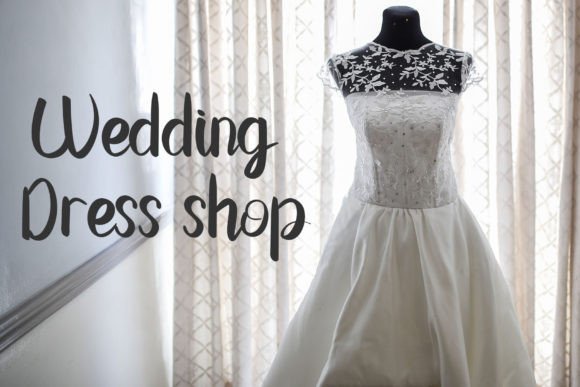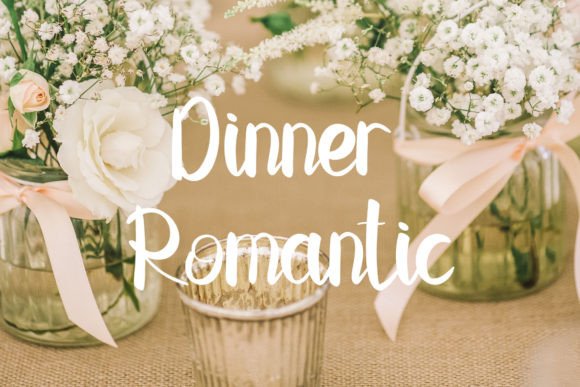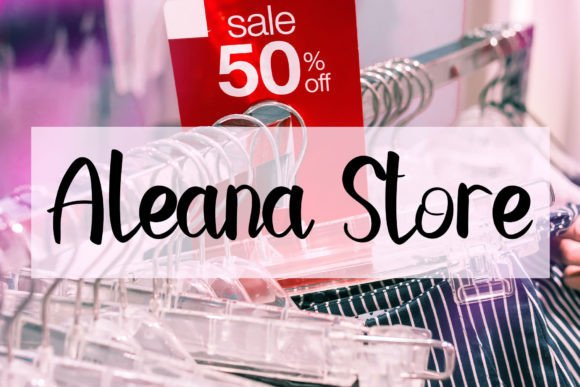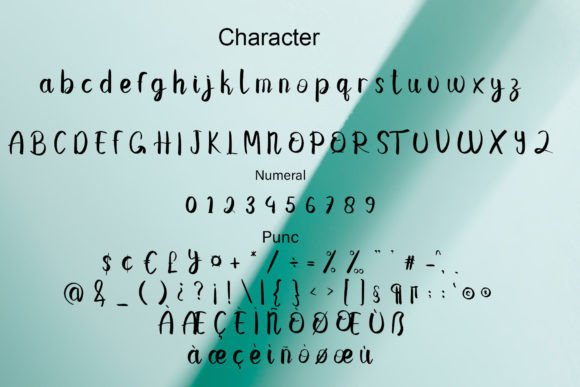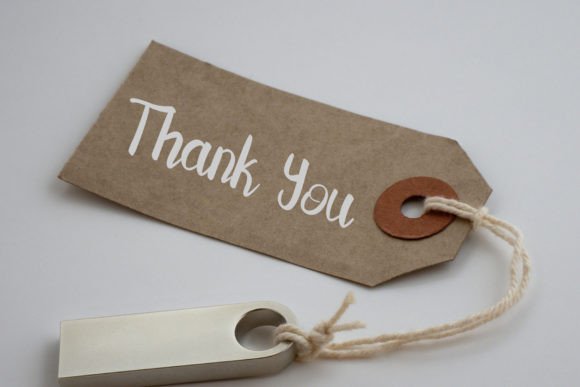
Introducing Angela Font: The Sweet and Friendly Handwritten Display Font
Are you looking for a font that can add a touch of warmth and personality to your designs? Look no further than Angela Font, a beautiful handwritten display font that’s perfect for creating fun and engaging visual content. In this article, we’ll take a closer look at Angela Font, its features, and how you can use it to elevate your designs.
What is Angela Font?
Angela Font is a sweet and friendly handwritten display font that’s designed to bring a touch of whimsy and playfulness to your designs. With its cute and fun appearance, this font is ideal for writing wedding invitations, cards, or any other design that might need a fun touch. Whether you’re a designer, crafter, or DIY enthusiast, Angela Font is a great addition to your font collection.
Key Features of Angela Font
So, what makes Angela Font so special? Here are some of its key features:
- Handwritten appearance: Angela Font has a beautiful handwritten appearance that’s perfect for creating personal and engaging designs.
- Cute and fun: This font is designed to be fun and playful, making it perfect for designs that need a touch of whimsy.
- Display font: Angela Font is a display font, which means it’s designed to be used at larger sizes, making it perfect for headings, titles, and other display text.
- Easy to read: Despite its playful appearance, Angela Font is easy to read, making it perfect for use in a variety of designs.
Use Cases for Angela Font
So, how can you use Angela Font in your designs? Here are some use cases to get you started:
- Wedding invitations: Angela Font is perfect for writing wedding invitations, adding a touch of romance and whimsy to your designs.
- Cards and stationery: This font is also great for creating cards and stationery, adding a personal touch to your correspondence.
- Social media graphics: Angela Font can add a touch of personality to your social media graphics, making them more engaging and fun.
- DIY projects: If you’re a crafter or DIY enthusiast, Angela Font is a great addition to your font collection, perfect for use in a variety of projects.
Tips for Using Angela Font
Here are some tips for using Angela Font in your designs:
- Use it at larger sizes: Angela Font is designed to be used at larger sizes, so don’t be afraid to use it for headings and titles.
- Pair it with other fonts: Angela Font pairs well with other fonts, so try combining it with a sans-serif font for a fun and modern look.
- Experiment with colors: This font looks great in a variety of colors, so don’t be afraid to experiment and find the perfect color for your design.
Angela Font is a beautiful handwritten display font that’s perfect for adding a touch of warmth and personality to your designs. With its cute and fun appearance, this font is ideal for writing wedding invitations, cards, or any other design that might need a fun touch. Whether you’re a designer, crafter, or DIY enthusiast, Angela Font is a great addition to your font collection.